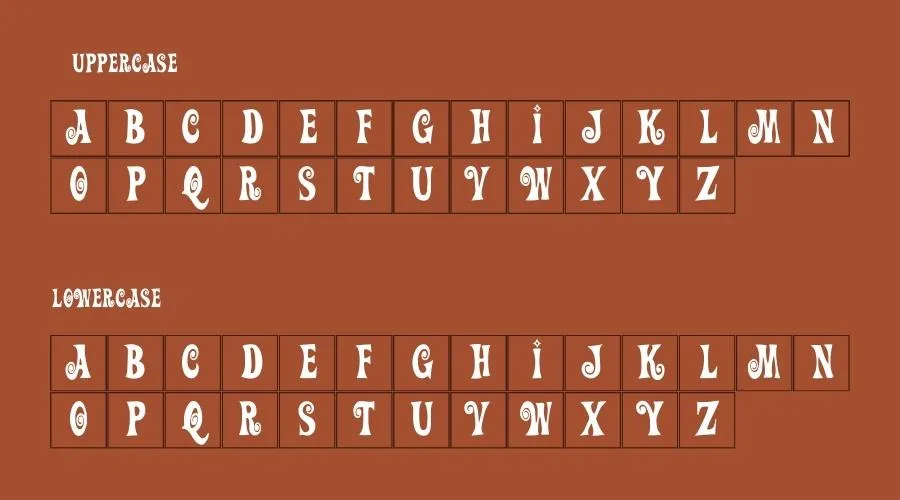
About Action Is Font
Action Is Font embodies typographic excellence through its masterful combination of swash extensions and professional standards. Created for engineering specs, this typeface delivers exceptional reliability and cultural authenticity across all applications. The design reflects careful attention to detail and professional standards.
Advanced capabilities include distinctive monoline strokes and versatile oldstyle figures, giving designers creative control. When used in marketing collateral, Action Is Font exhibits remarkable color consistency. The harmonious balance between stem weight and cultural resonance sets this typeface apart.